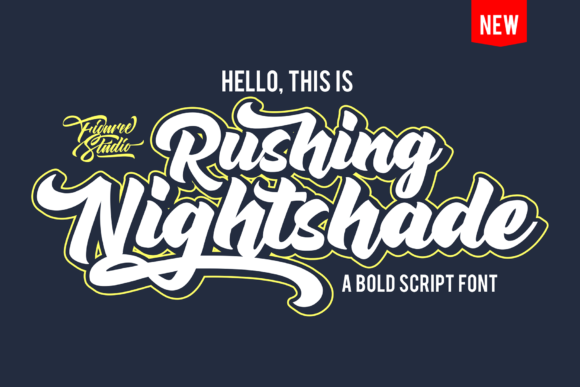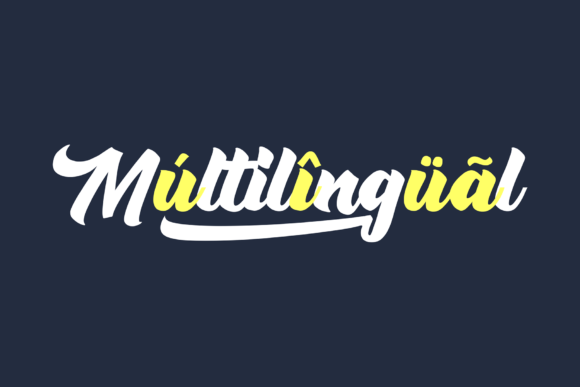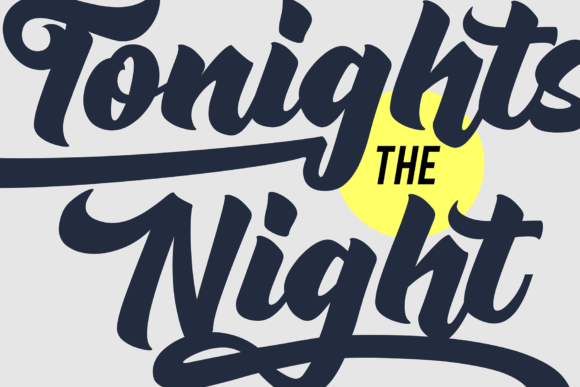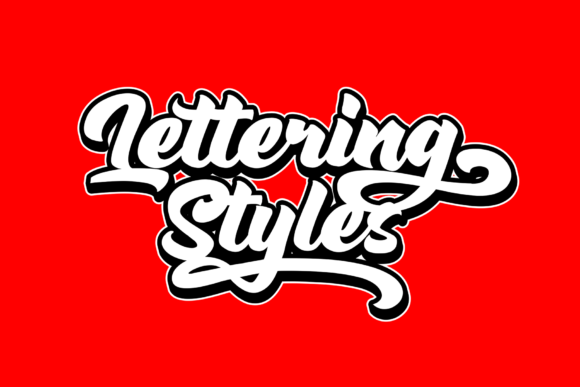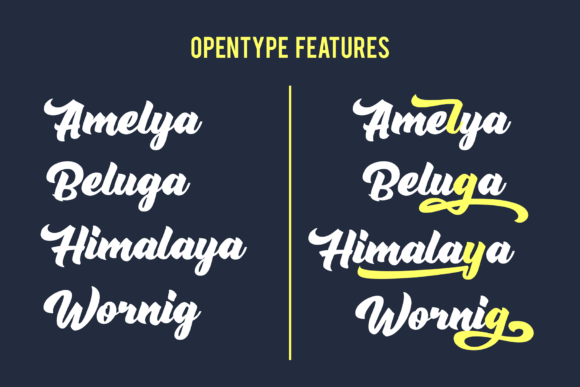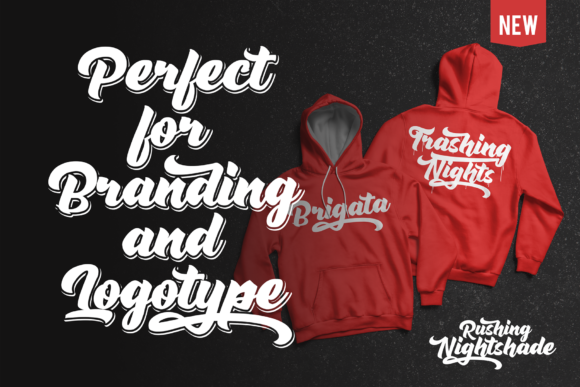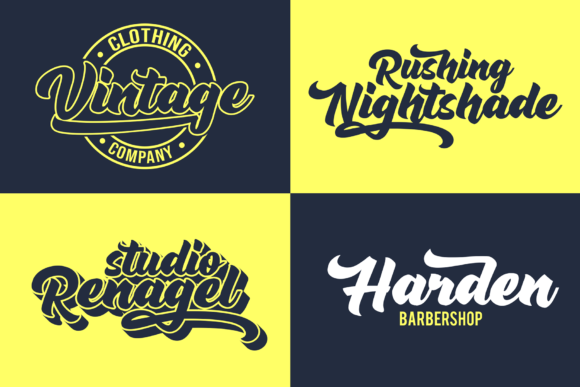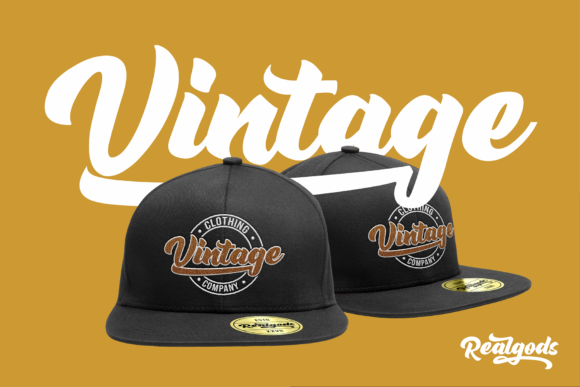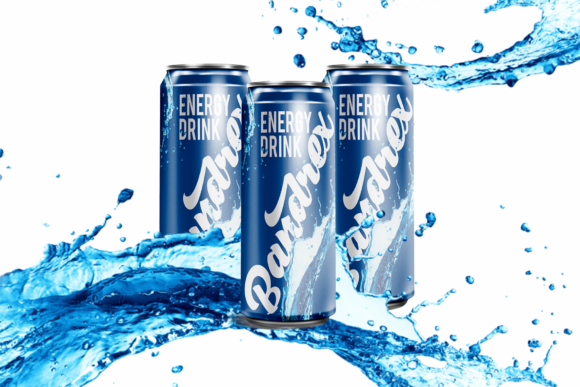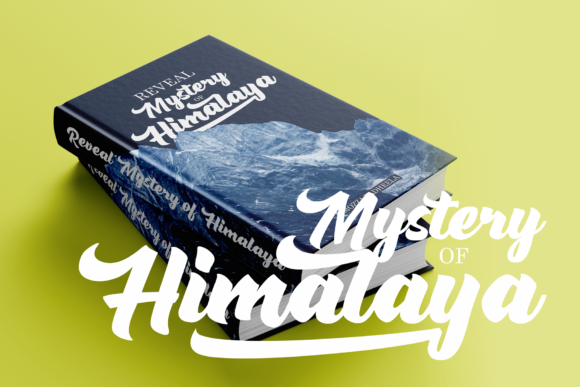
Rushing Nightshade Font
About Rushing Nightshade Font
Rushing Nightshade is a natural bold script font inspired by vintage aesthetics. Get inspired by its retro appeal!